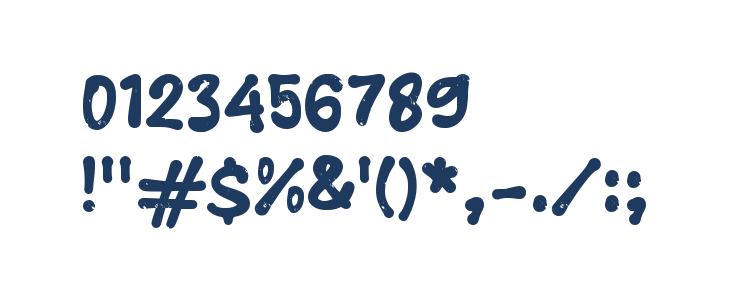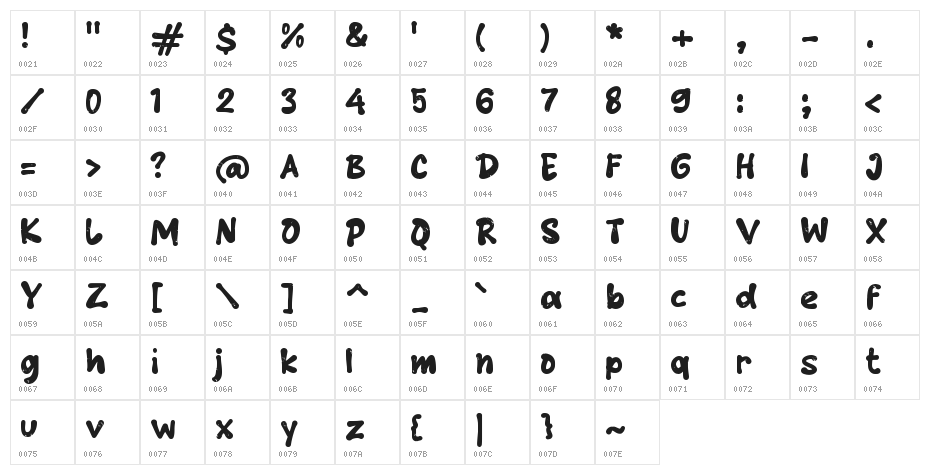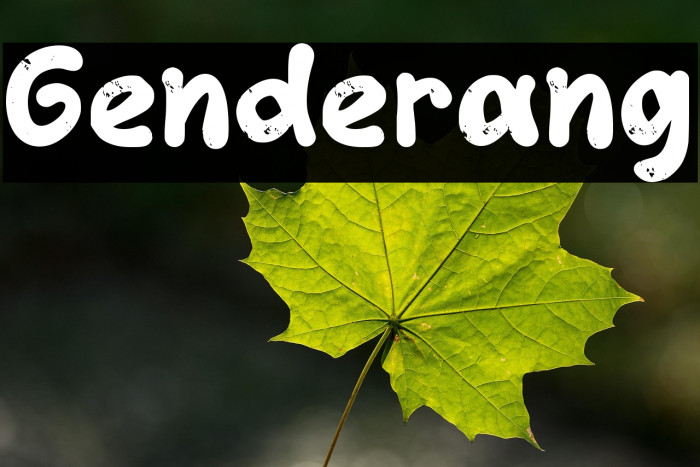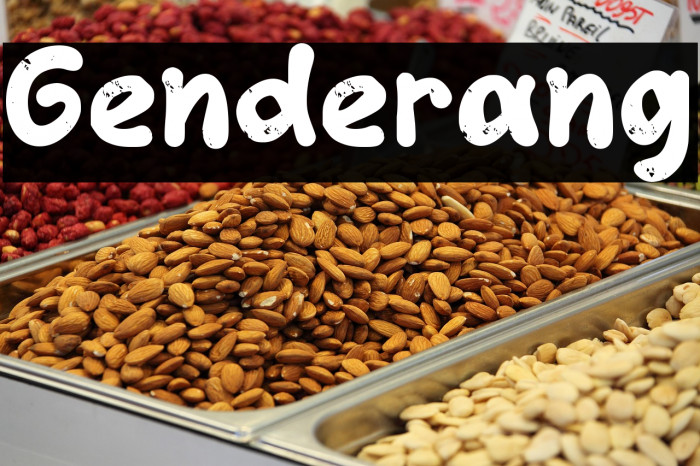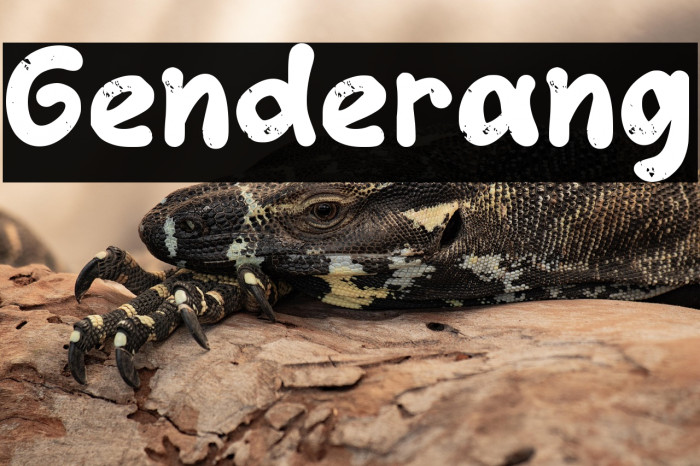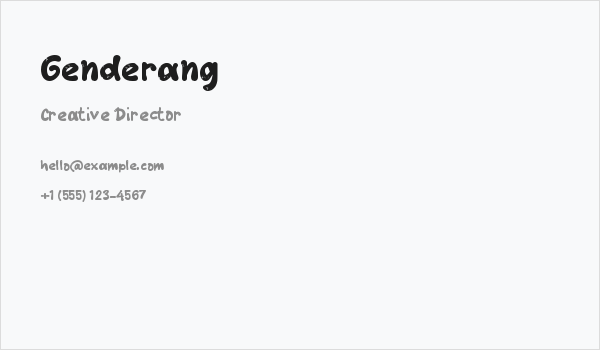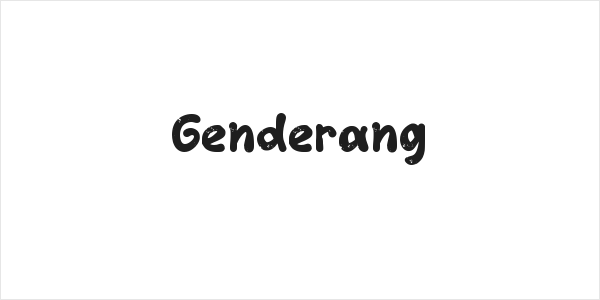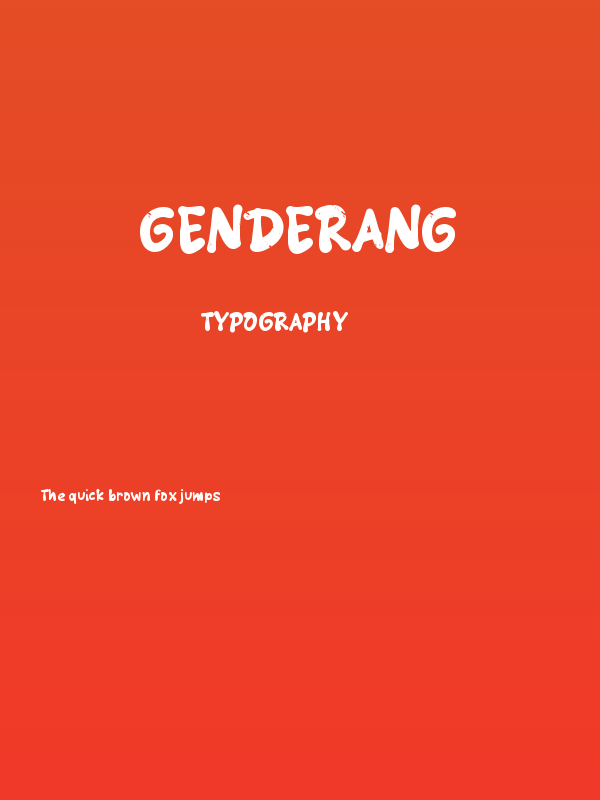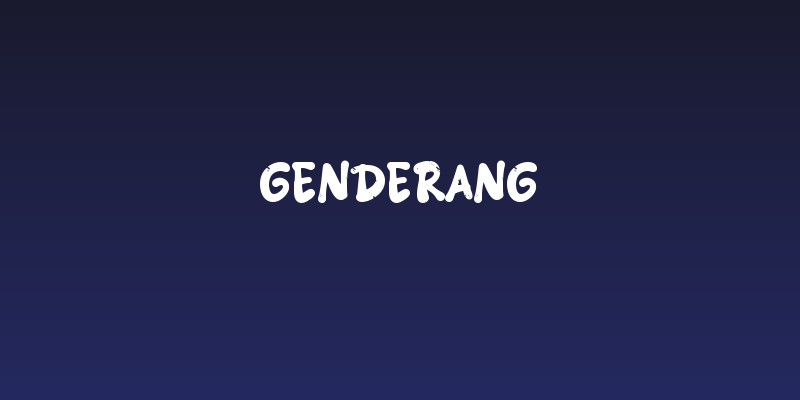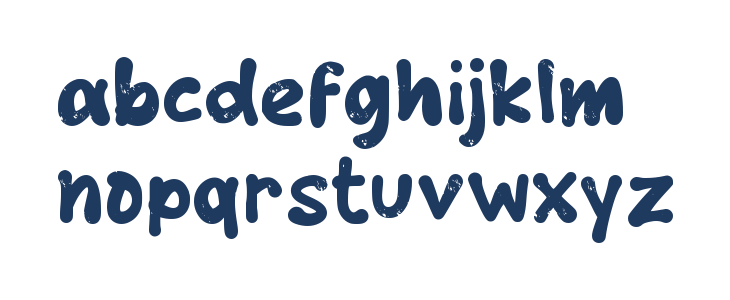
Genderang Font
Genderang Description
This font features a bold, playful style with a hand-drawn appearance. The characters are thick and rounded, with a slightly irregular texture that gives them a casual and artistic feel. The uppercase and lowercase letters maintain a consistent weight, while the numbers and special characters blend seamlessly with the overall design. The font's organic, brush-like strokes add a sense of movement and energy, making it ideal for creative and informal applications.
| Proposed Projects | Perfect for children's books, playful branding, posters, and creative social media graphics. |